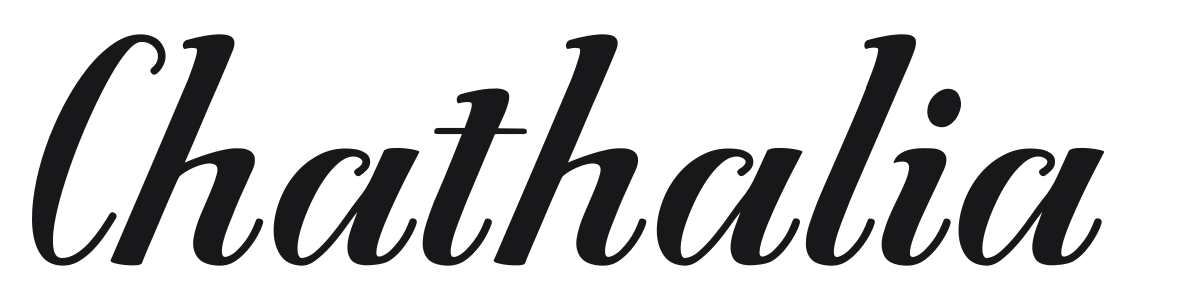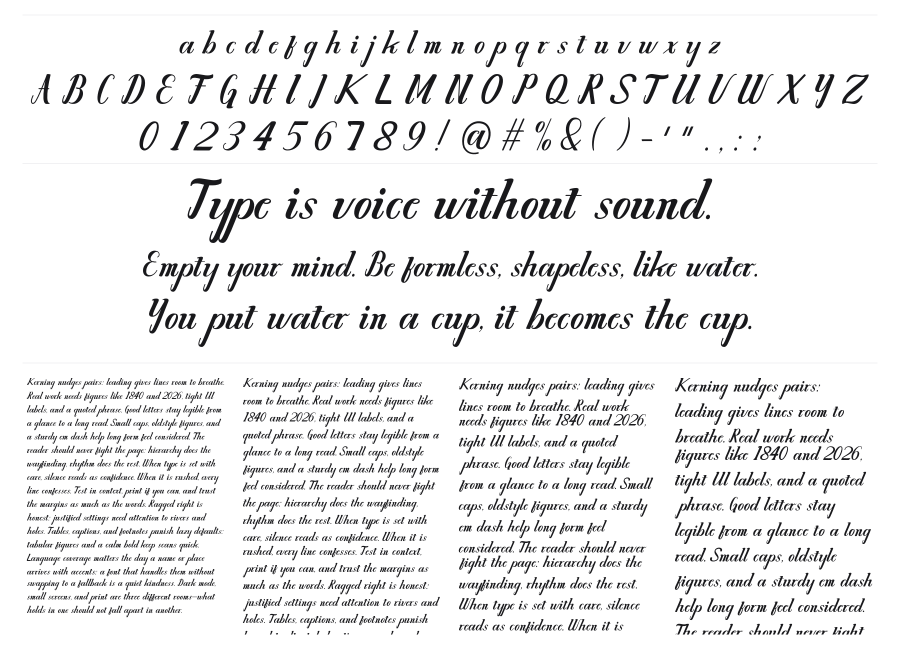
Chathalia
Chathalia is a bold formal script drawn with sharp copperplate contrast between heavy stems and hairline strokes. The sweeping italic angle and flowing connected letters give it a dramatic, high-fashion energy. Strong at large sizes for logos, editorial headlines, and luxury packaging.